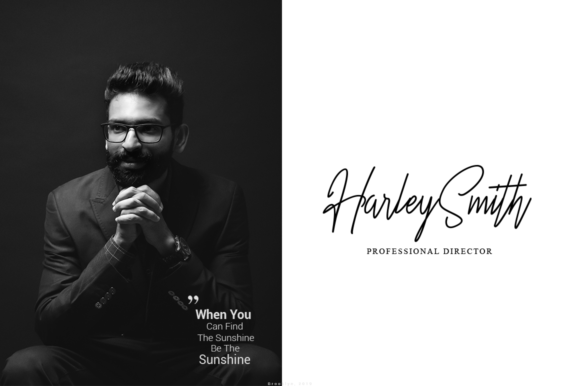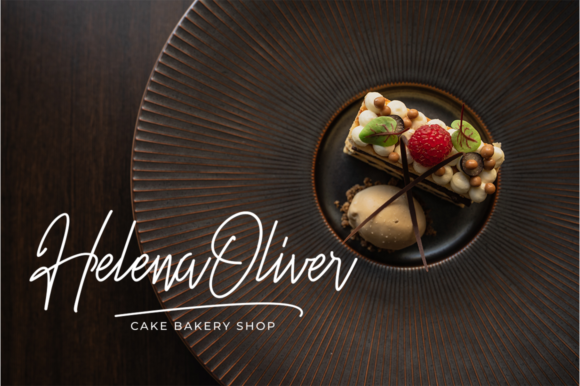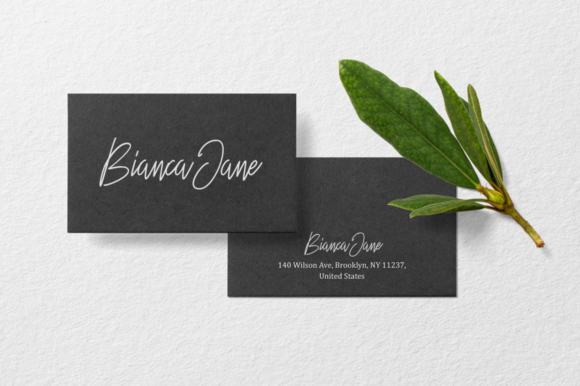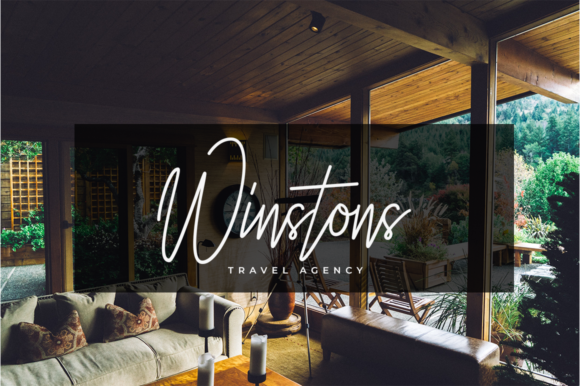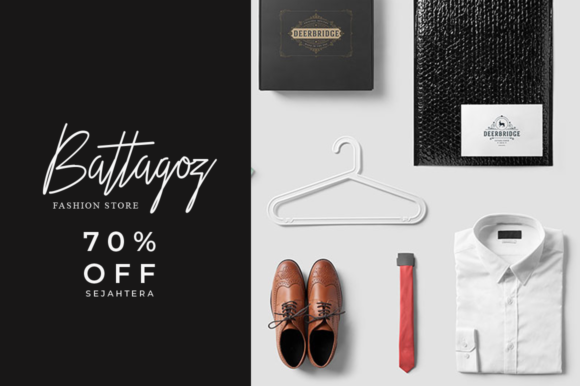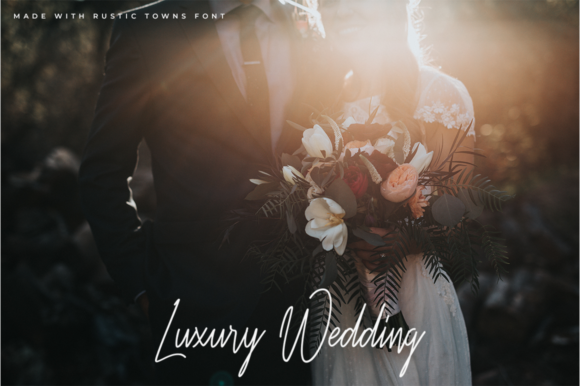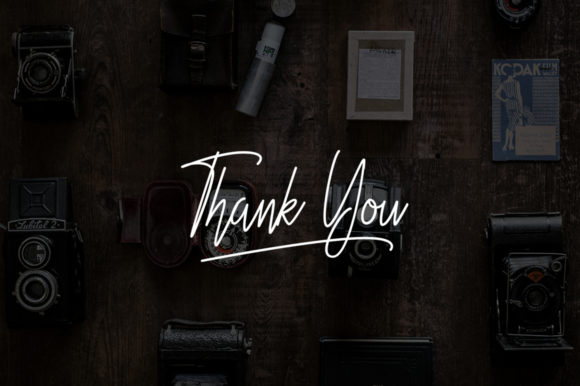
Rustic Towns Font
About Rustic Towns Font
The Rustic Towns is an amazing signature font. It has a stylish handwritten feel which can be used for logos, branding, invitations, wedding designs, labels, and much more!